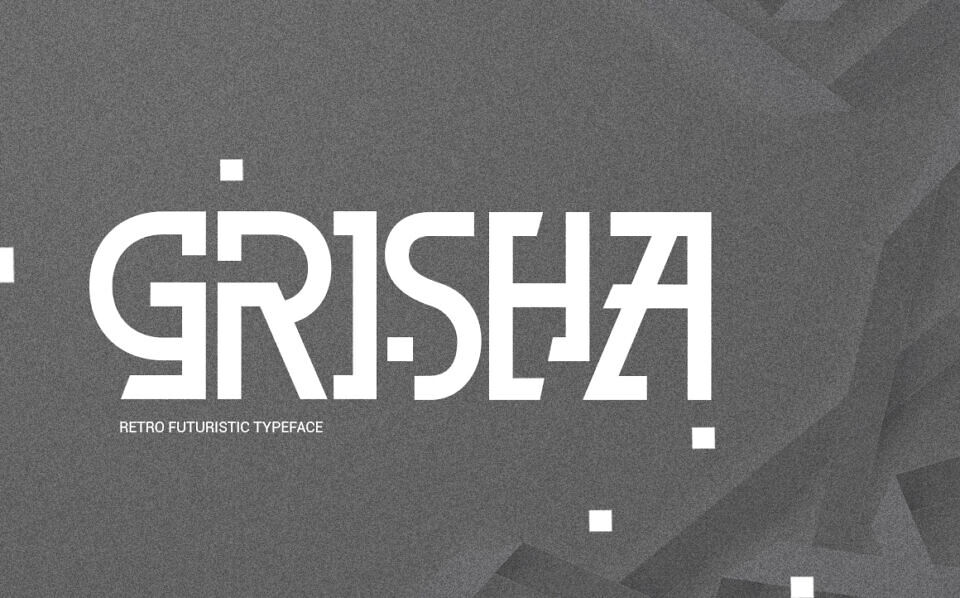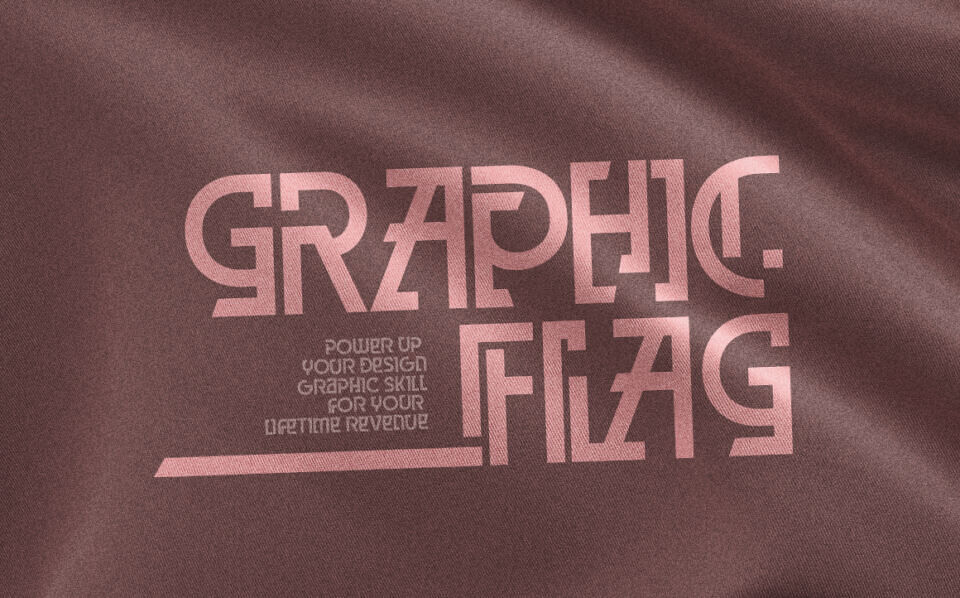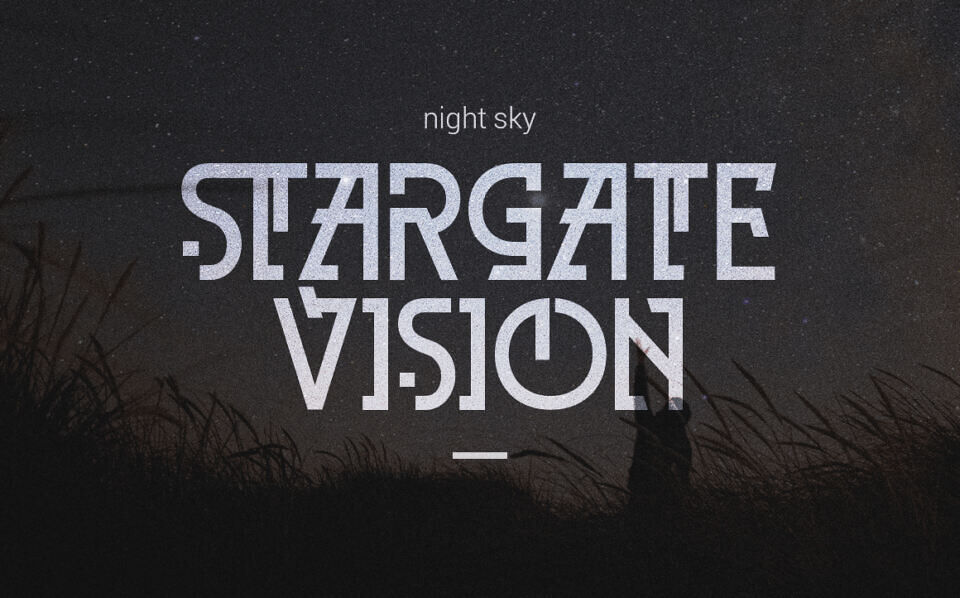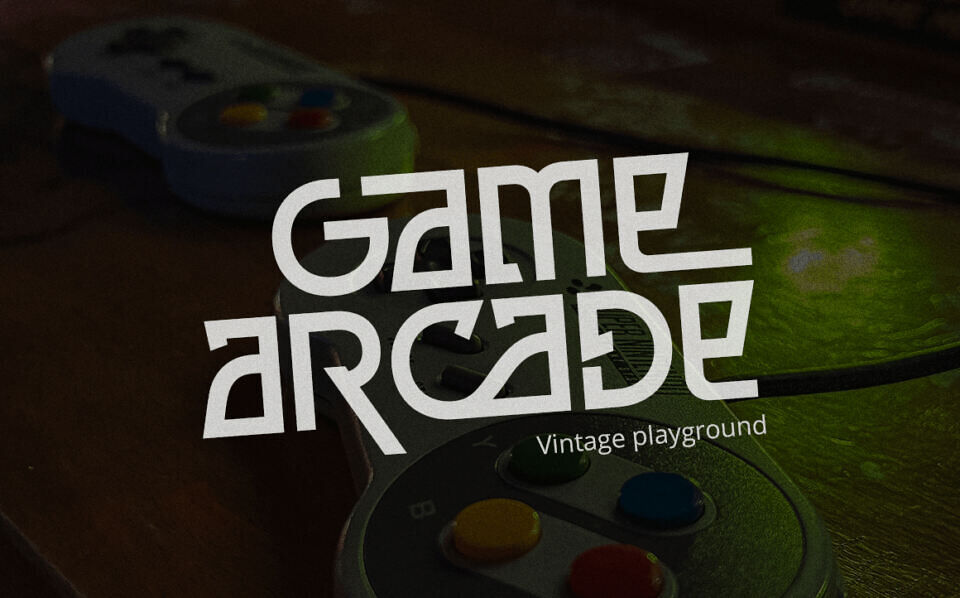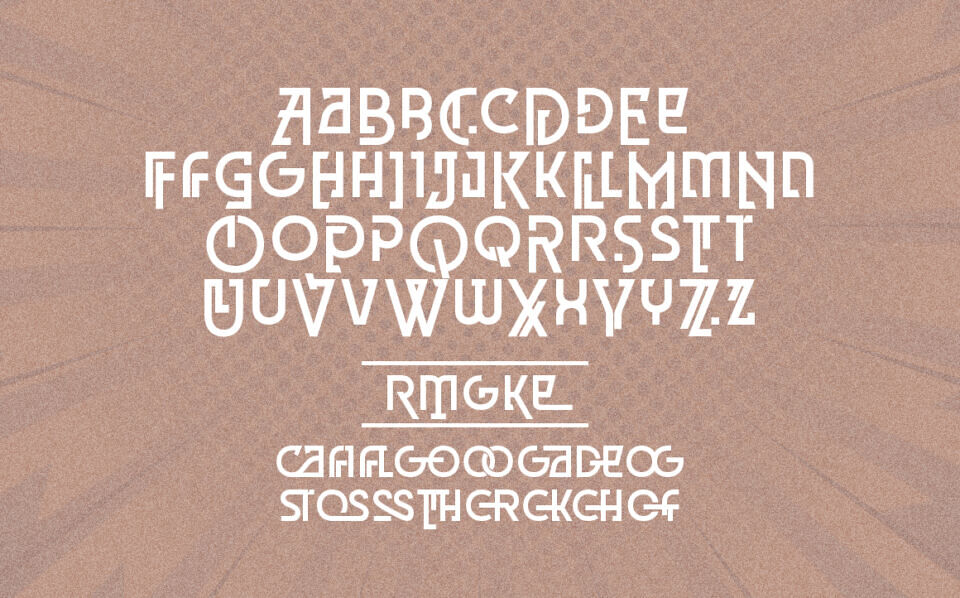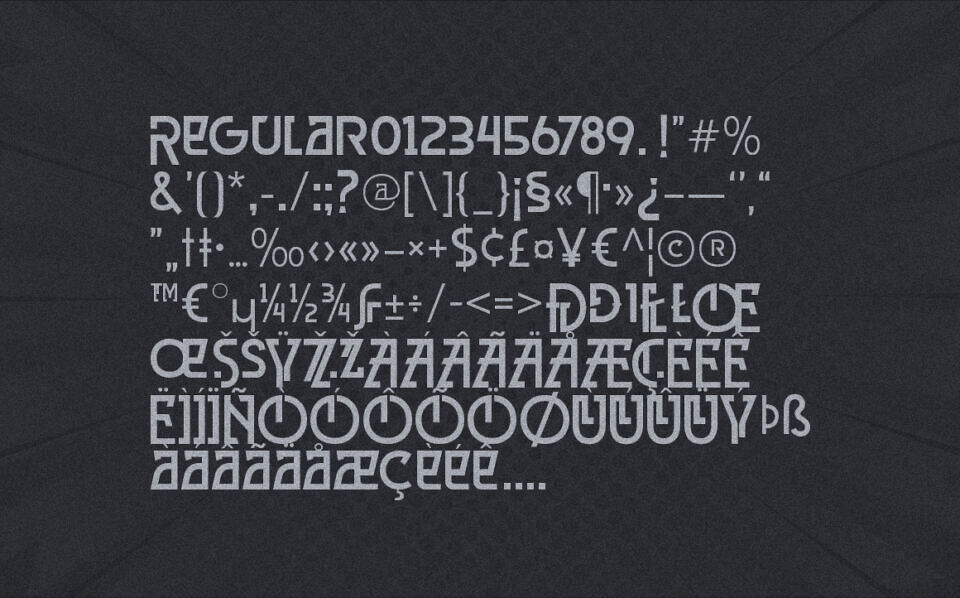
Grisha Font
Grisha is a retro modern futuristic font, Each glyphs has an unique look. it come with bold condensed and tight kerning to show strong characteristic.
This font is very suitable for any project such as logo type, logo tagline, name card, flyer design, magazine header or even invitational card.